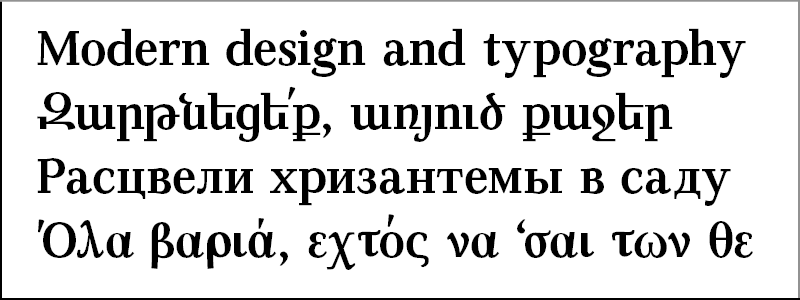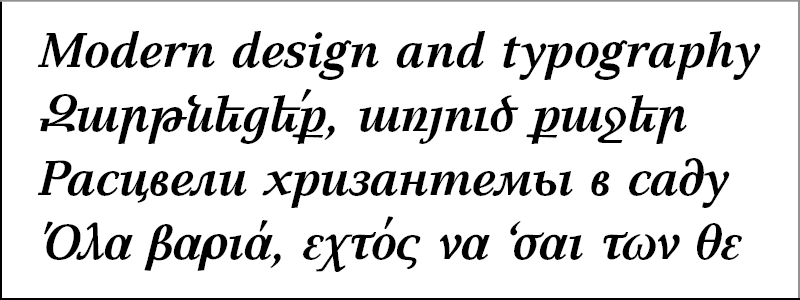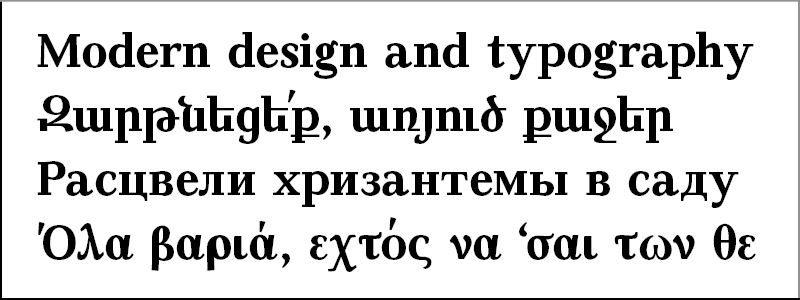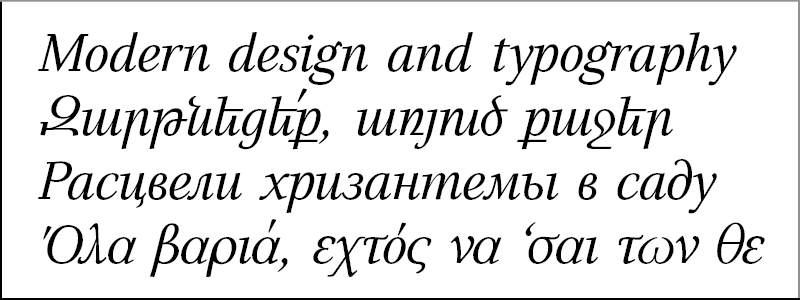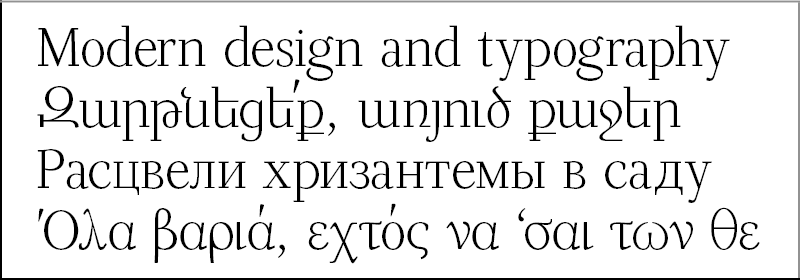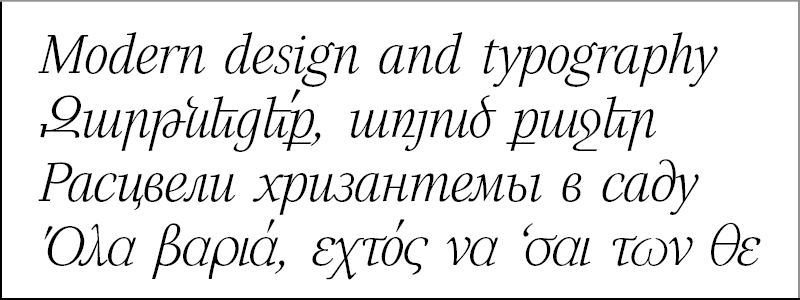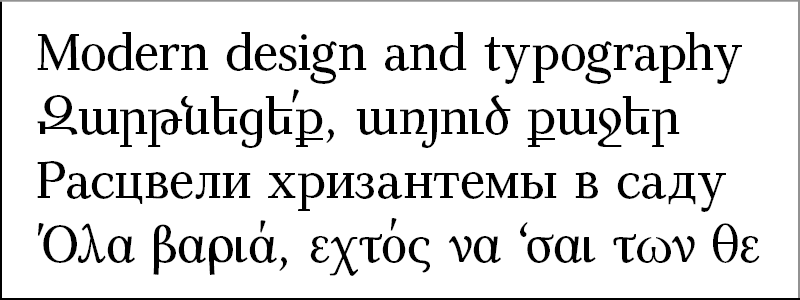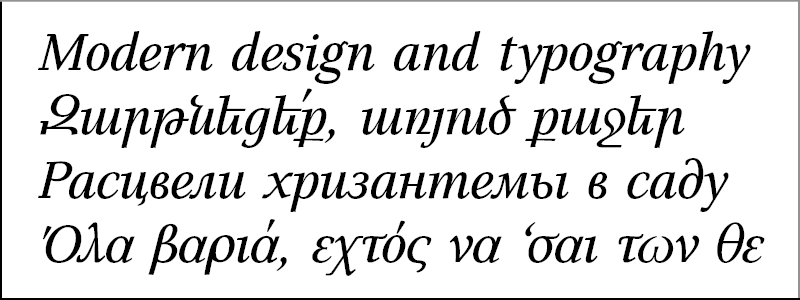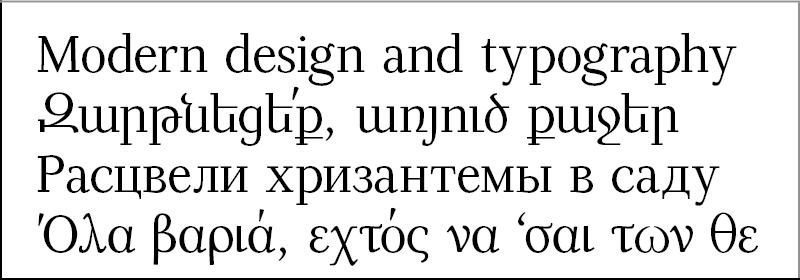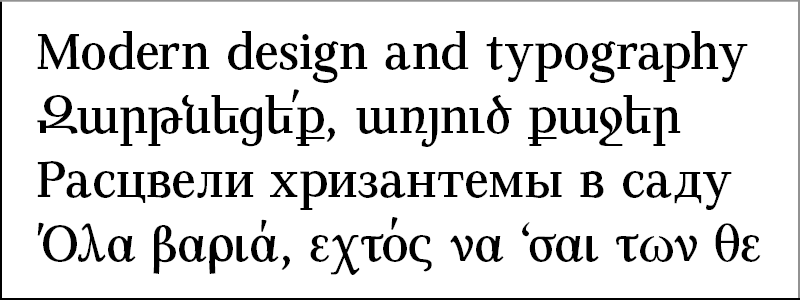
ASF Angela
Designer: Angela Poghosova
Design date: 2010
The font received 2nd Prize in Armenian and 3rd Prize in Cyrillic categories at Granshan competition.
The font family includes Latin, Armenian,  Cyrillic and Greek alphabet systems.
To be used in texts, poster, and titles.